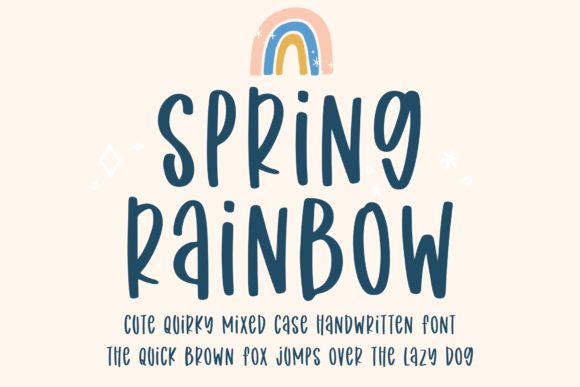
Unleash your creativity with Spring Rainbow Font, a whimsical and enchanting script font that will transport you to a world of imagination. Crafted with the utmost care by Jyllyco, this font exudes a unique charm that's perfect for adding a personal touch to your creative projects.
With its playful and fluid strokes, Spring Rainbow Font dances across the page, capturing the essence of nature's vibrant beauty. Its organic and lively style adds a touch of whimsy to logos, branding, invitations, greeting cards, blog posts, and more.
Step into a world of boundless creativity with Spring Rainbow Font. Let your imagination soar as you explore the infinite possibilities of expression. Its versatility knows no bounds, allowing you to effortlessly create designs that captivate and inspire.
Embrace the magic of Spring Rainbow Font and elevate your creations to new heights. Its charming and captivating nature will add a touch of wonder to all your projects, leaving a lasting impression on your audience.
Welcome to the world of Spring Rainbow Font, where imagination meets reality. Dive into a realm of endless possibilities and let your creativity blossom.